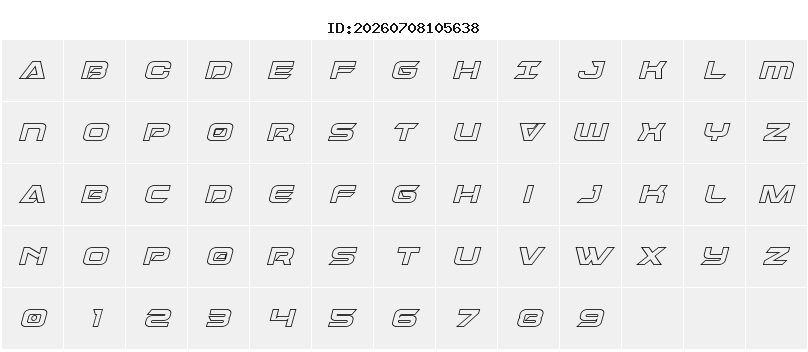
Dameron Bold Outline Italic Preview
• Font Name: Dameron Bold Outline Italic
• Font Style: Bold Outline Italic
• Full Font Name: Dameron Bold Outline Italic
About Dameron Bold Outline Italic.ttf
Dameron Bold Outline Italic.ttf is a modern, elegant sans-serif font designed for ultimate readability and visual harmony. Perfect for branding, headlines, web design, and print materials.